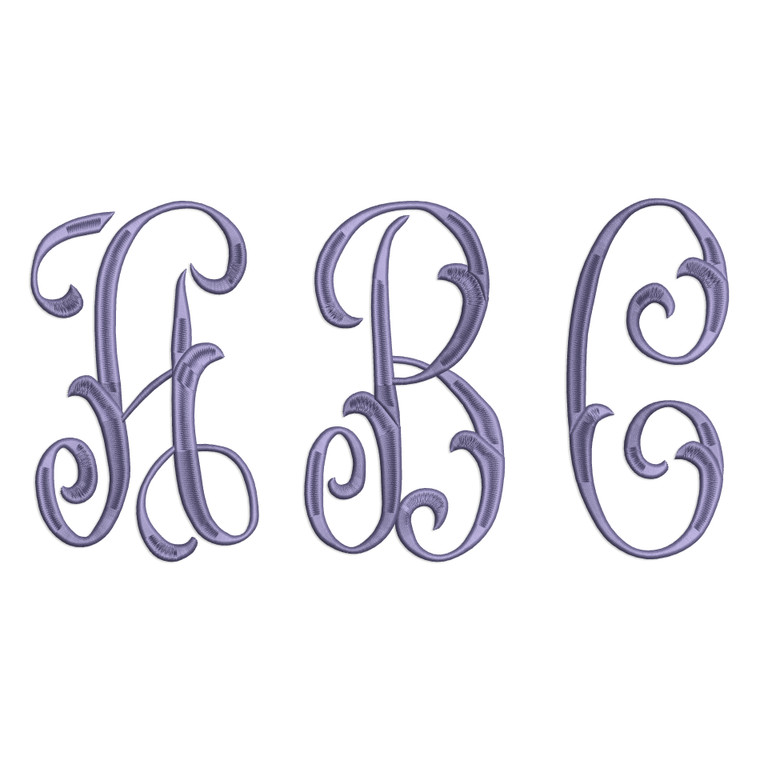
Large Arabesque Style 2 Monogram Machine Embroidery Font Alphabet
This set comes with the 26 letters shown in the second image in 3 sizes:
All letters are satin stitched with split satin stitching in wider areas.